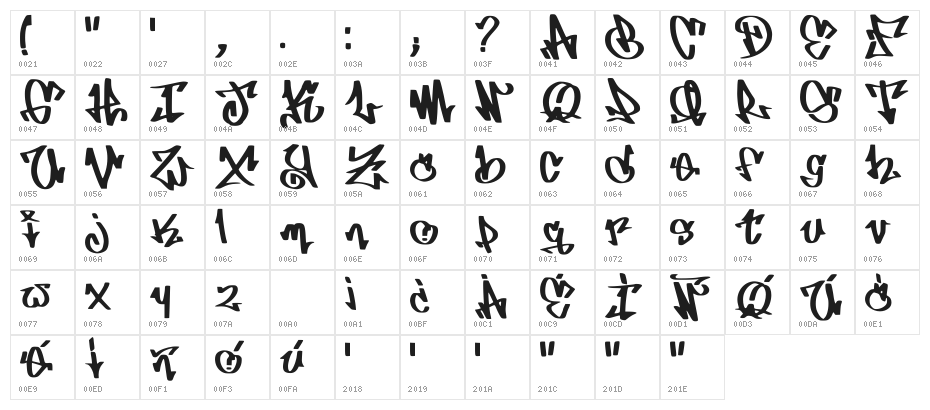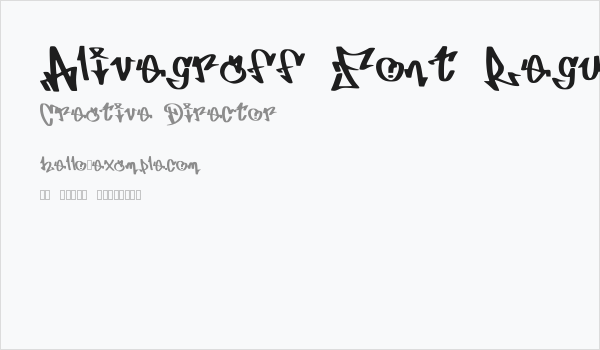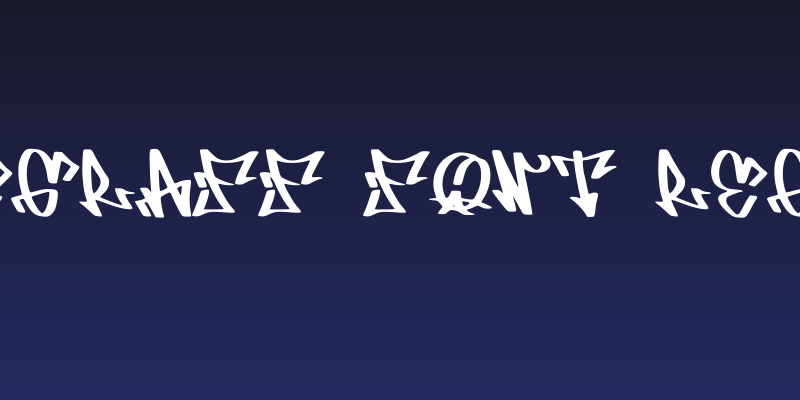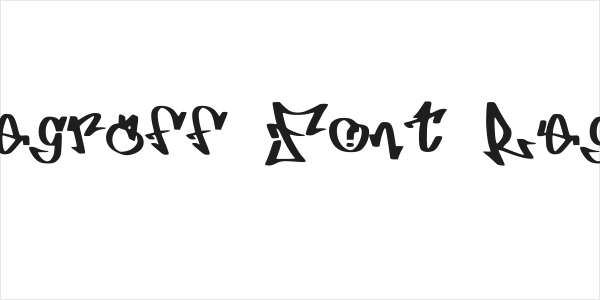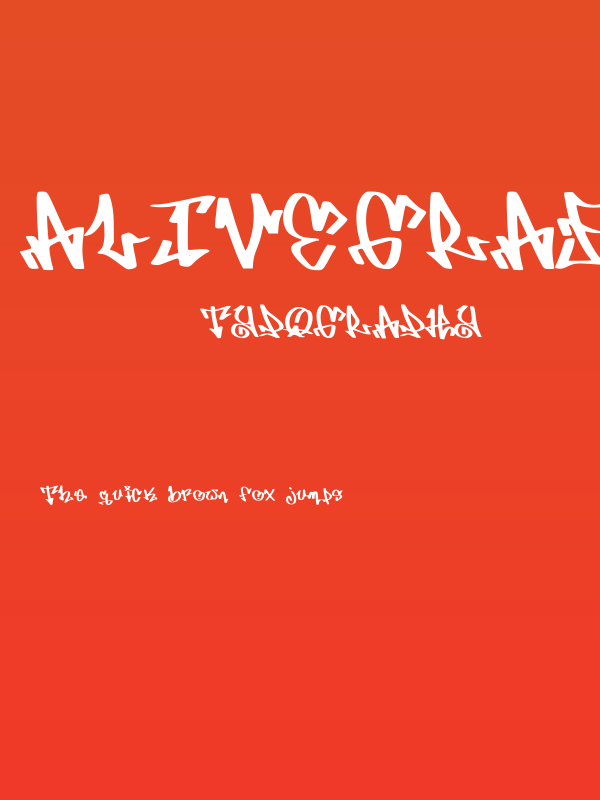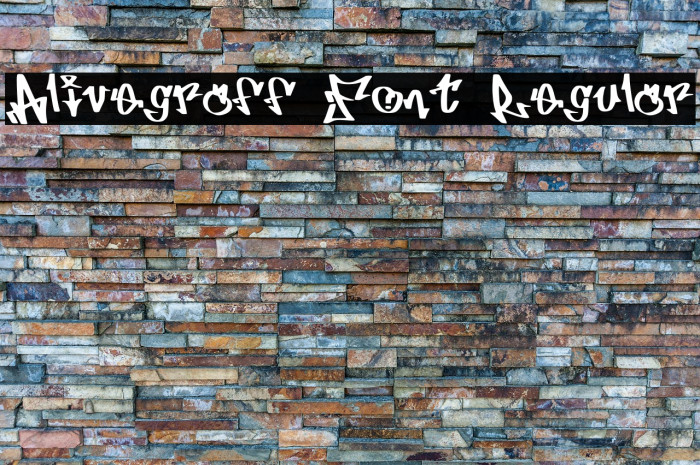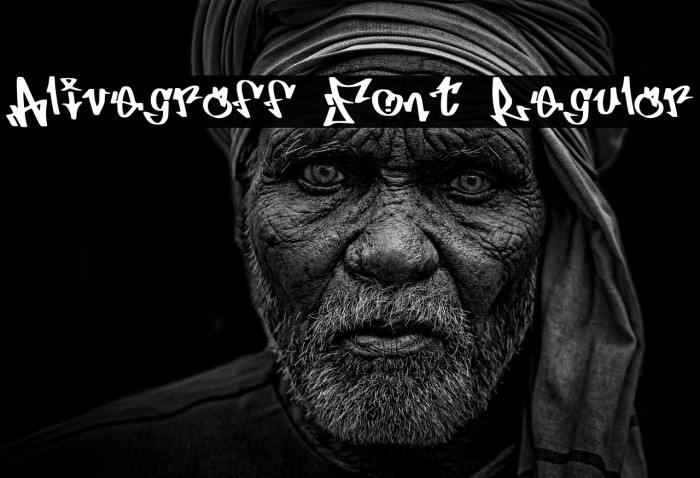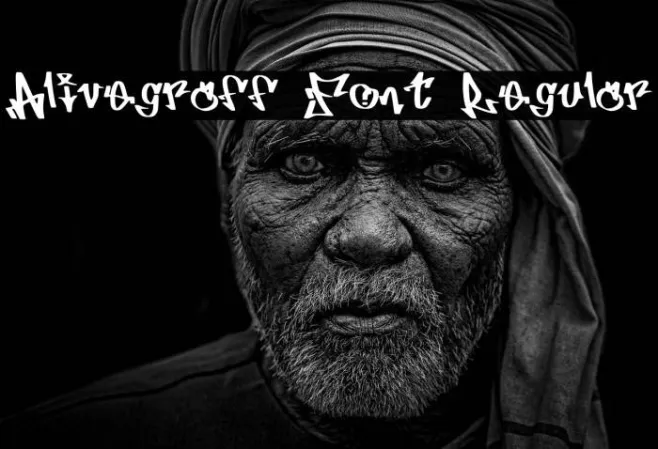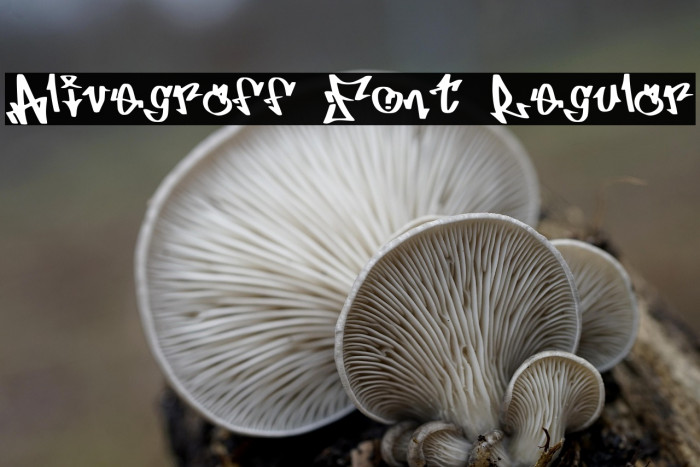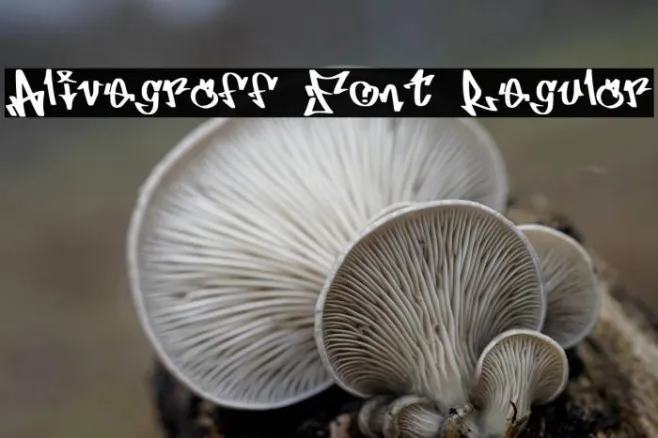
Alivegraff Font Regular Font
Alivegraff Font Regular Description
This font exudes a bold and dynamic graffiti style, characterized by its angular and edgy letterforms. The uppercase and lowercase letters are designed with a sense of movement and energy, featuring sharp angles and unique, artistic flourishes. The numbers and special characters maintain this expressive style, making the font ideal for creative and urban-themed projects. The overall appearance is striking and attention-grabbing, perfect for making a statement.
| Overall Style | Modern, Urban, Artistic |
| Proposed Projects | Ideal for street art designs, urban-themed posters, music album covers, and edgy branding projects. |